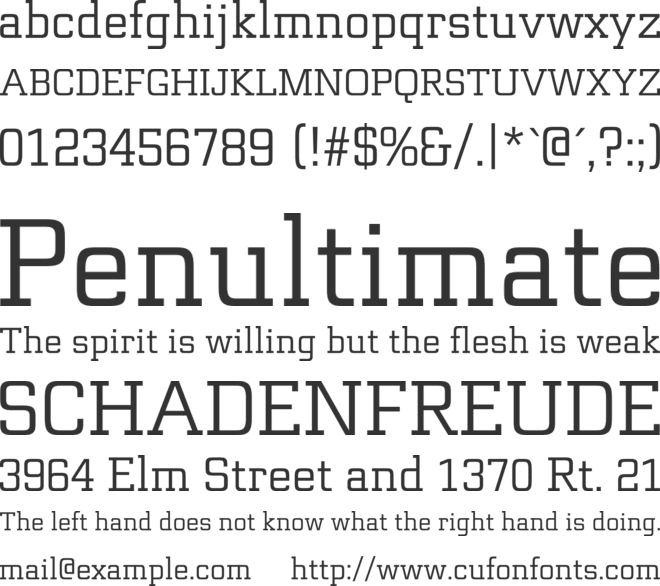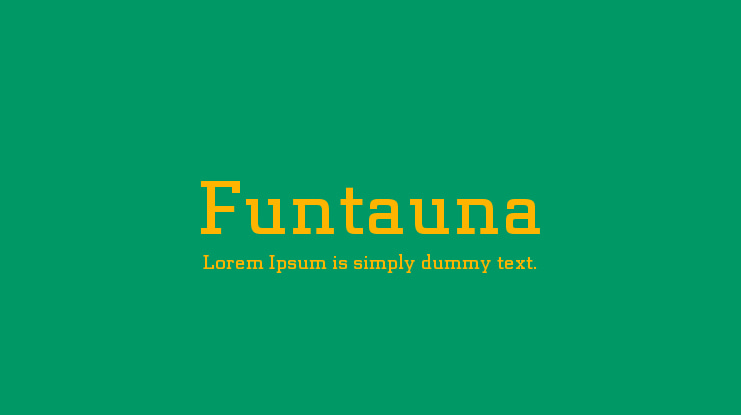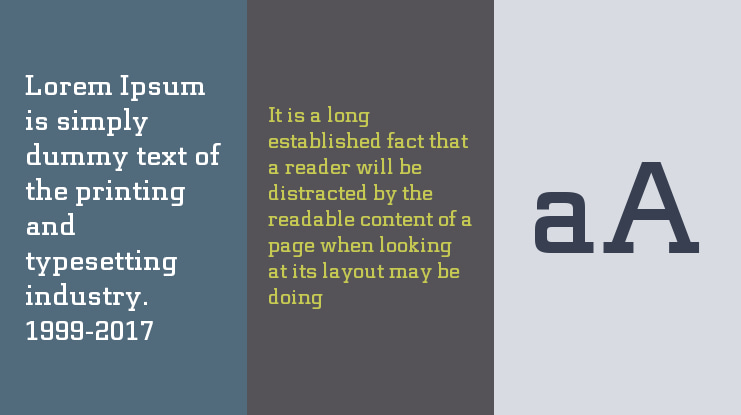
Funtauna Font Family
Funtauna is a rectangular slab serif similar to the typeface City or the typeface Algol. There are some special faces called "Otg". They are the kind of fonts that are used for college football T-shirts. The font was developed entirely in METAFONT/METAPOST (with the help of the python-fontforge script mf2outline).